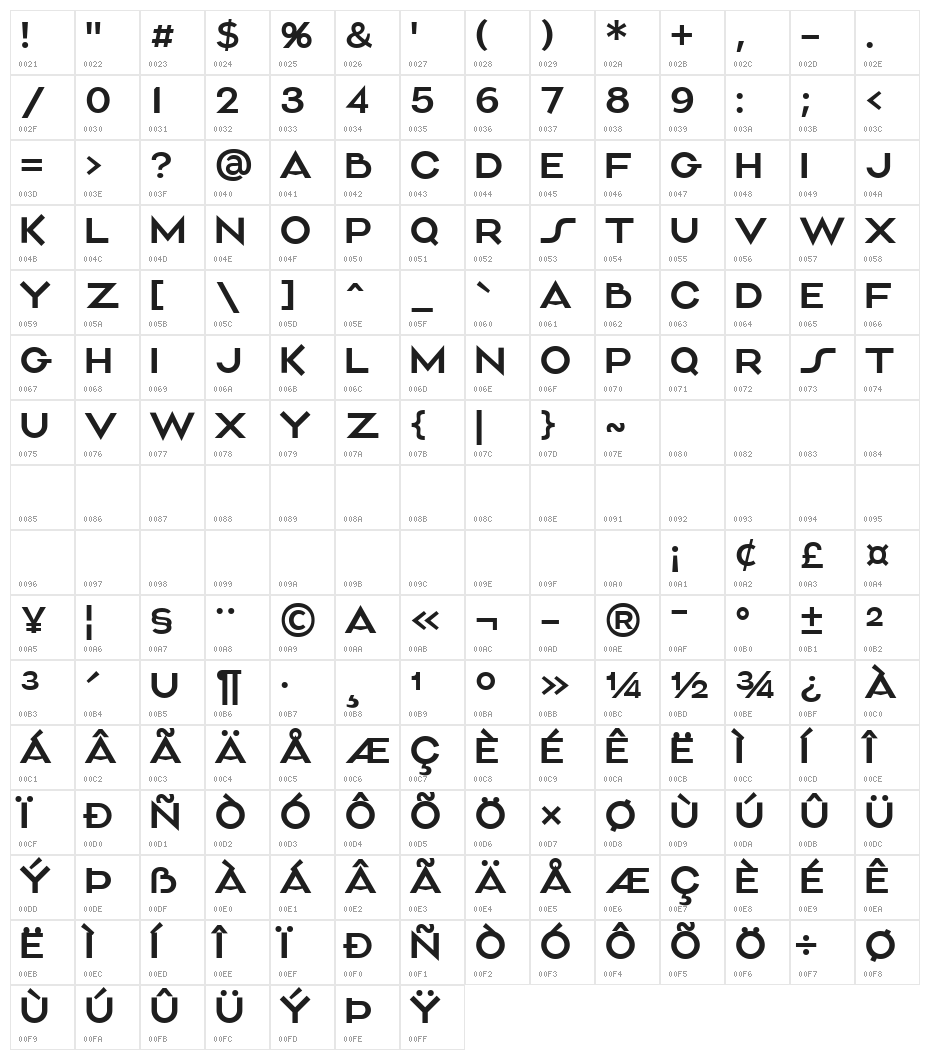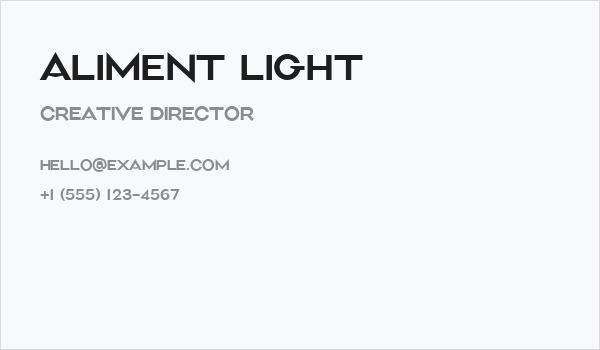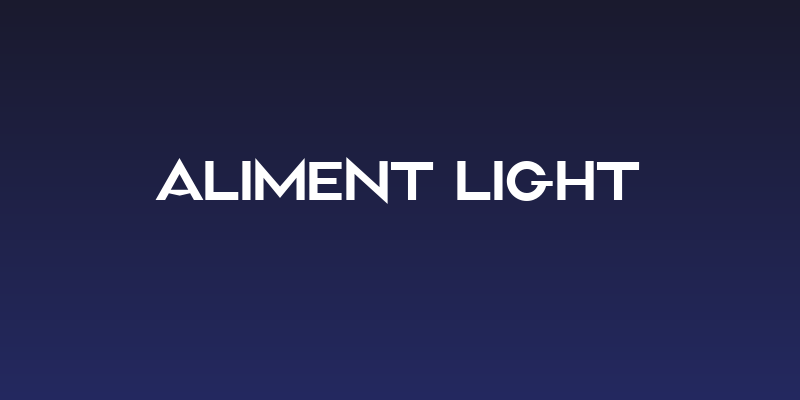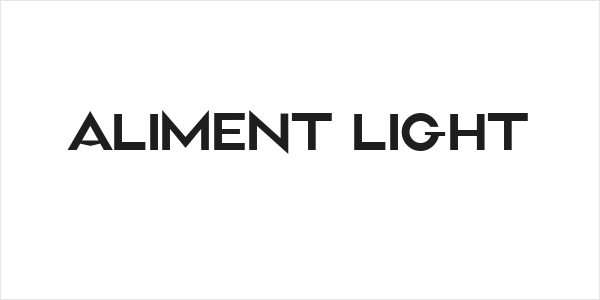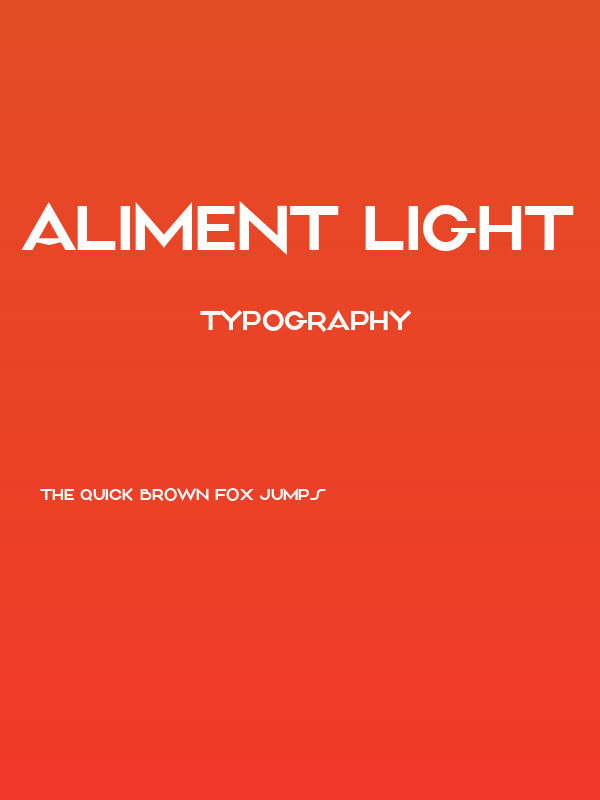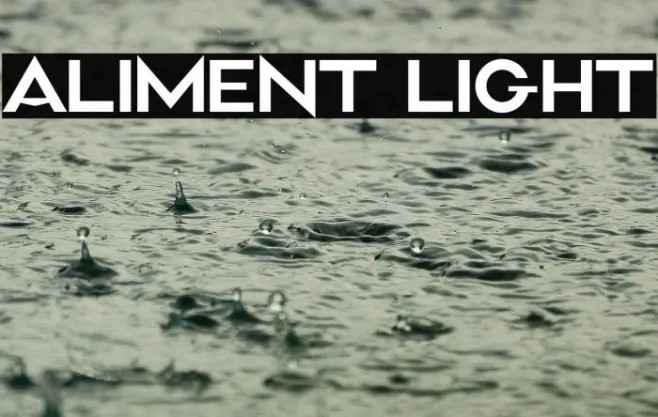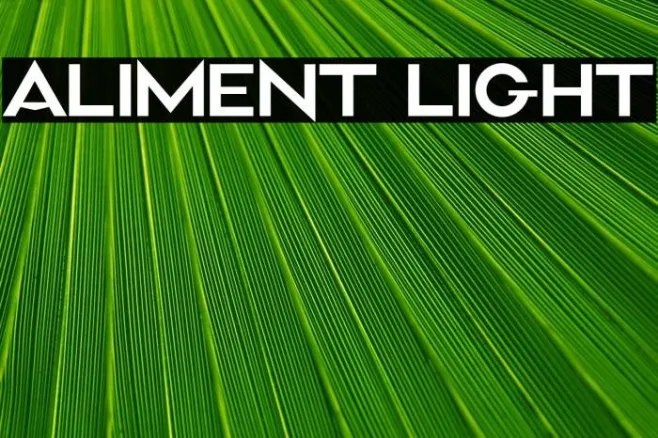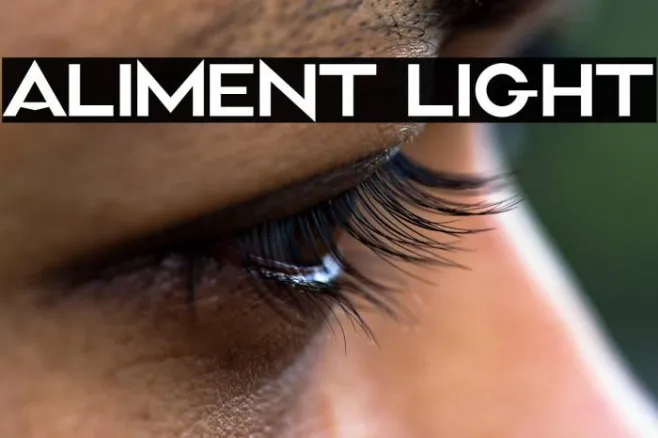
Aliment Light Font
Aliment Light Description
This font features a modern and geometric design with clean lines and a bold presence. The characters are constructed with a uniform stroke width, giving it a consistent and balanced appearance. The uppercase letters are particularly striking, with sharp angles and a futuristic feel. The numerals and special characters maintain the same geometric style, ensuring a cohesive look across all text. This font is highly legible and makes a strong visual impact, suitable for various design applications.
| Proposed Projects | Ideal for branding, headlines, posters, and digital media where a modern and impactful look is desired. |